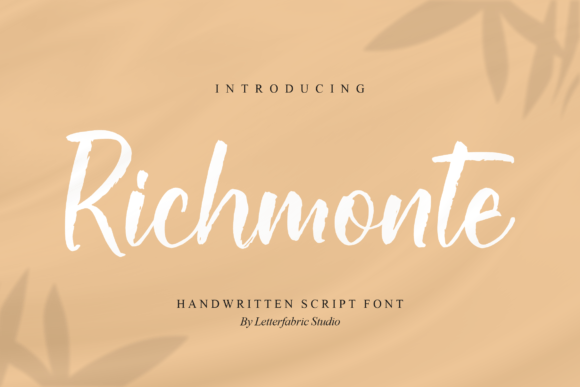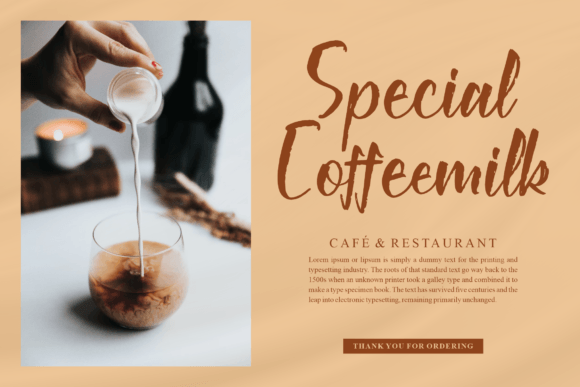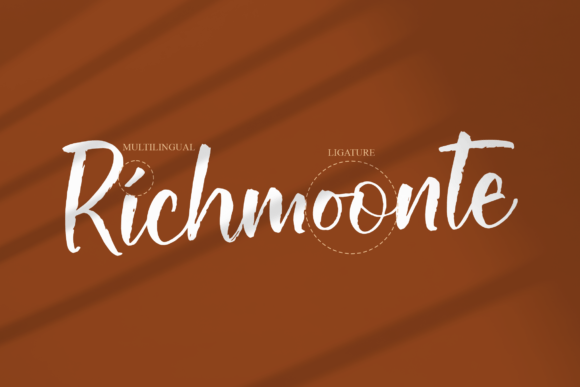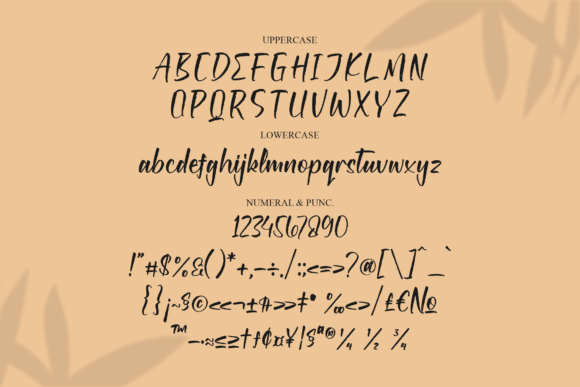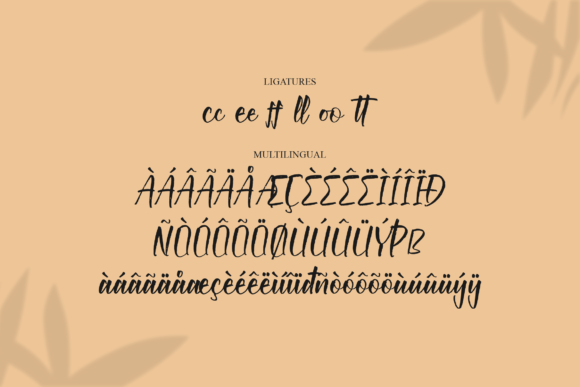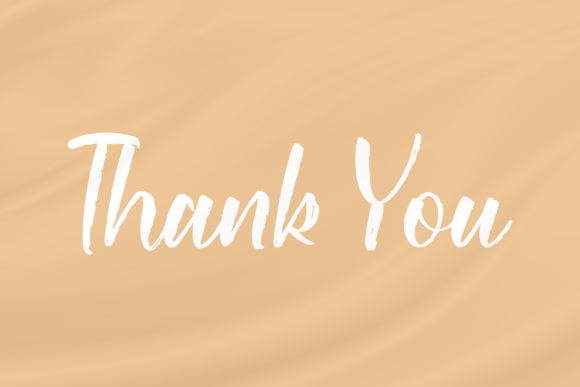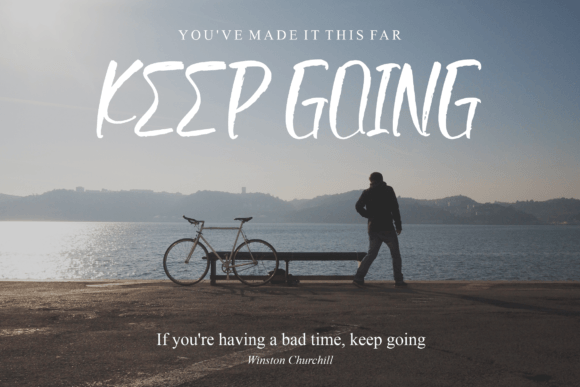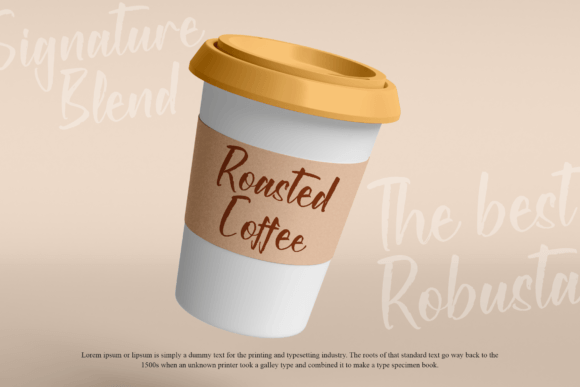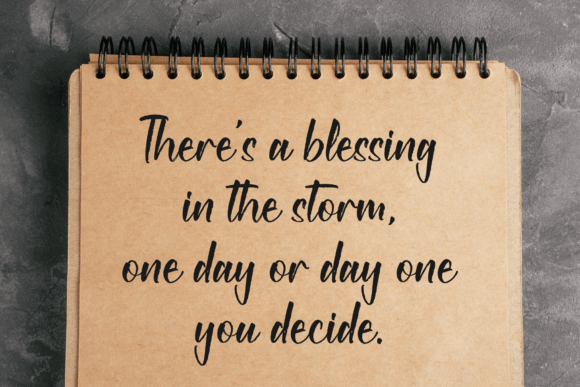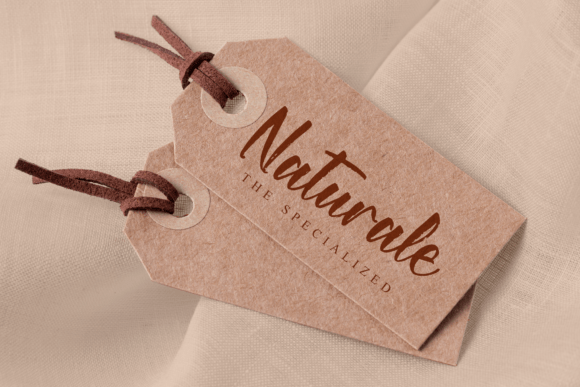
Richmonte Font
Introducing Richmonte Font
The Richmonte Font is a unique and elegant handwritten typeface that exudes a sense of personalization and style. This font offers a distinct and visually appealing option that can enhance the aesthetics of various design projects. Its charm lies in its uniqueness and elegance, making it a perfect choice for projects where you want to convey a personalized and stylish touch.
Why Choose This Typeface?
• Elegant and Unique: Richmonte adds sophistication to your designs, making it suitable for wedding invitations, thank you cards, greeting cards, logos, and more.
• Versatile Usage: This font provides a visually appealing choice for various creative endeavors, allowing you to infuse your designs with individuality.
Applications of Richmonte
• Invitations: Use this font to create elegant invitations that capture attention.
• Branding: Enhance your brand identity with a signature style that conveys modern elegance.
• Greeting Cards: Perfect for adding a stylish script aesthetic to greeting cards and other creative projects.
The Impact of Using Richmonte
This font elevates your designs by making them visually captivating and memorable. It becomes a reliable tool for designers seeking to create projects that stand out with elegance. Its balanced form ensures your designs are both refined and captivating.
The Value It Brings
This typeface excels in combining contemporary design aesthetics with classic elegance. By choosing Richmonte, you ensure your designs are not only visually appealing but also sophisticated and unique.
This font is also ideal for various creative projects beyond traditional uses. It can enhance digital designs with its elegant flair, making it suitable for websites, brochures, or mobile interfaces. The Richmonte Font adapts well to different screen sizes while maintaining its charm. As design trends evolve, this font remains relevant due to its timeless appeal, balancing style with functionality effectively.